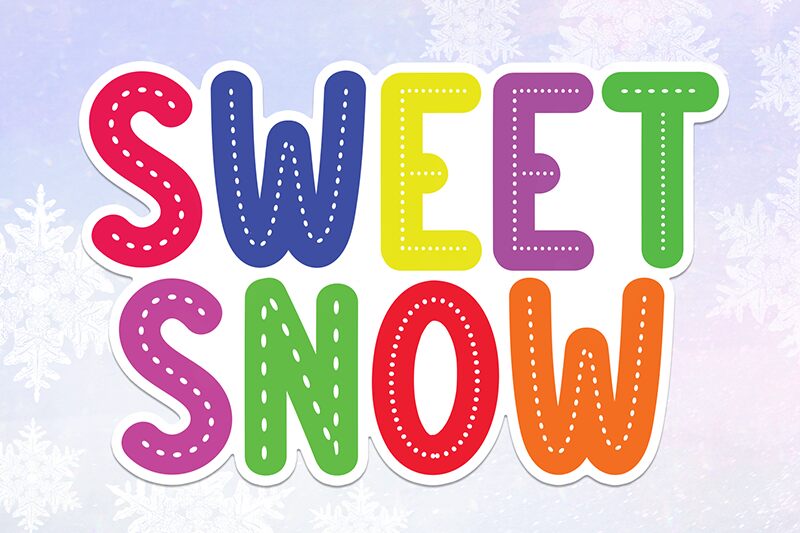
Sweet Snow
Sweet Snow font by Scratchones is a decorative display typeface with cartoon elements. The groovy letter styling and eclectic design of this font make it retro-inspired with a twist of modernity. Each character of Sweet Snow is developed to create friendly nostalgic moods within the message, perfect for projects that need some interesting edges.